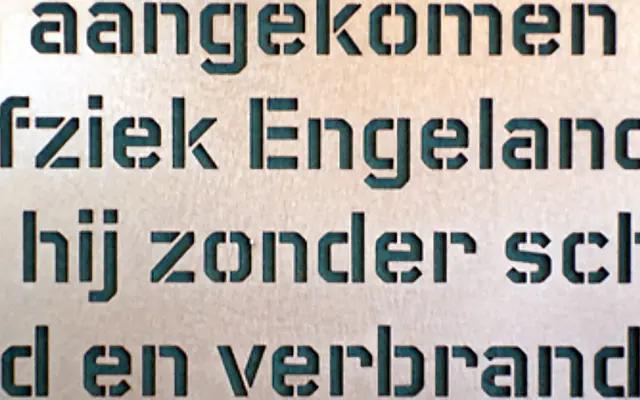
Foundry Fabriek
The Foundry Types · David Quay
A stencil sans designed by David Quay, originating as a commission to laser-cut poems into steel panels at the Interpolis building in Tilburg, with Wim Crouwel as consultant.
David Quay developed Foundry Fabriek from Foundry Gridnik after being commissioned to create letterforms for steel panels in an Interpolis office interior, working under the guidance of Wim Crouwel. The design resolves the tension between stencil geometry and diagonal strokes by adding a straight on the inside of terminals, giving it a considered finish that lifts it beyond purely mechanical construction. Five weights from Light to Extra Bold make it flexible for architectural signage, environmental graphics and display work where letterforms are cast, cut or embossed at scale.
A stencil typeface derived from Foundry Gridnik, built on a systematic grid with deliberate stencil breaks and vertical stress. Its industrial fabrication origins and architectural applications place it firmly in the display/stencil category.